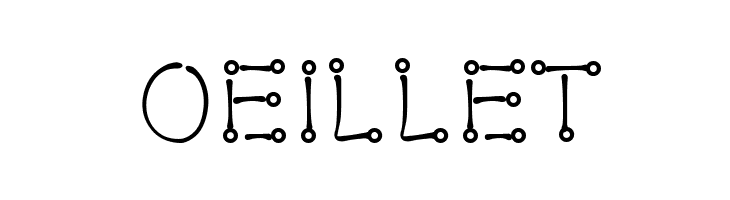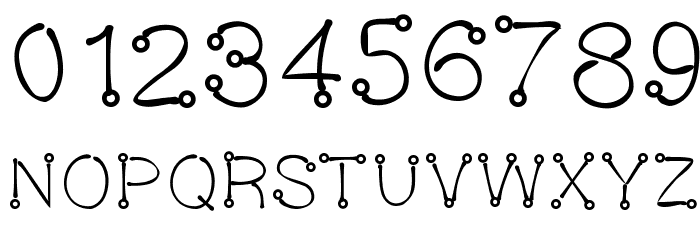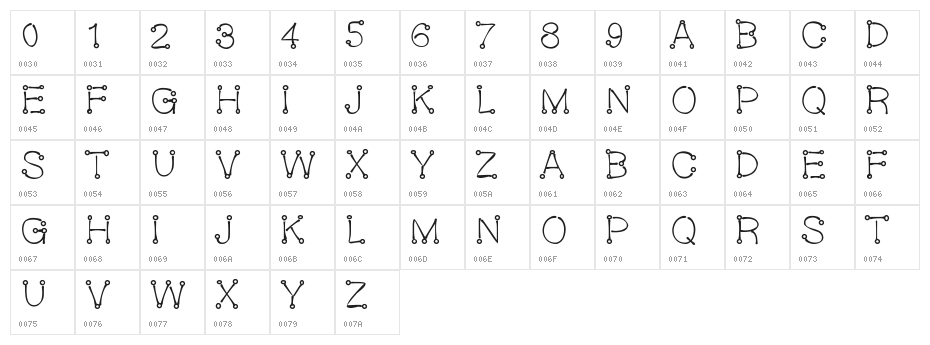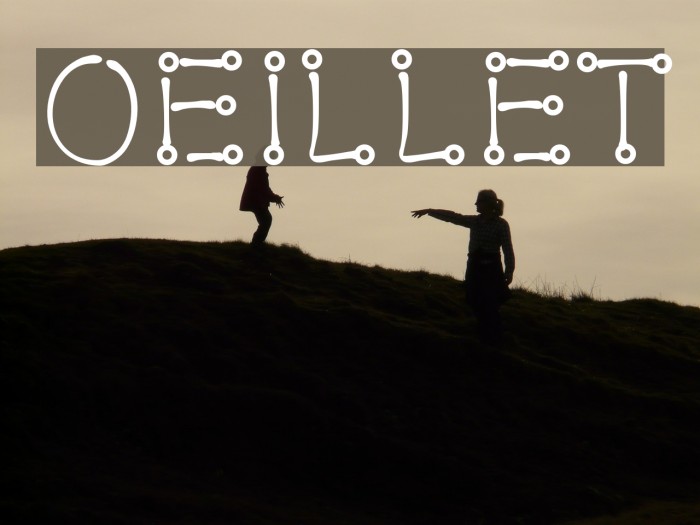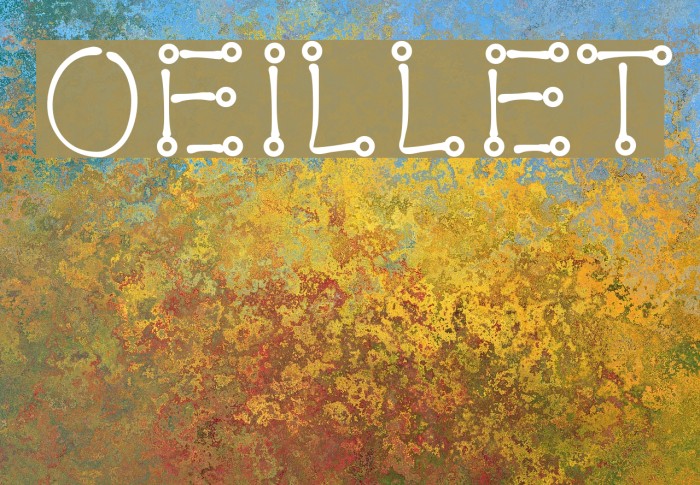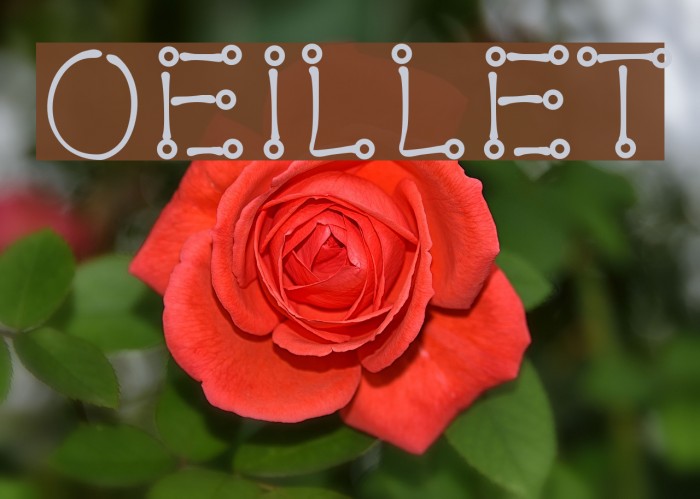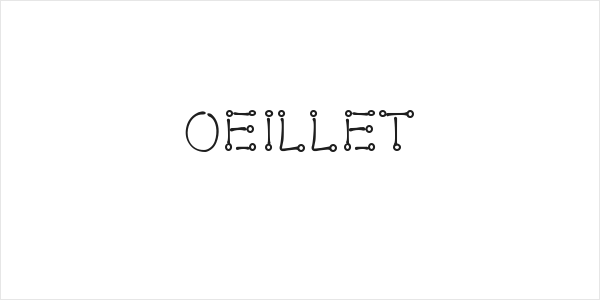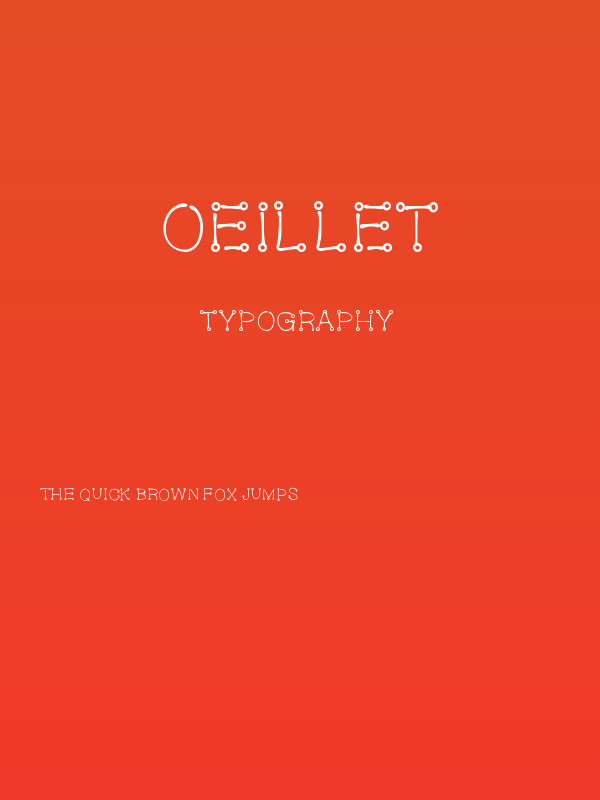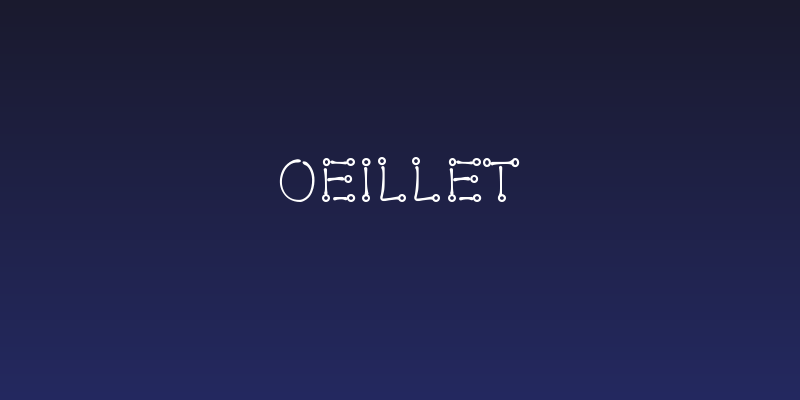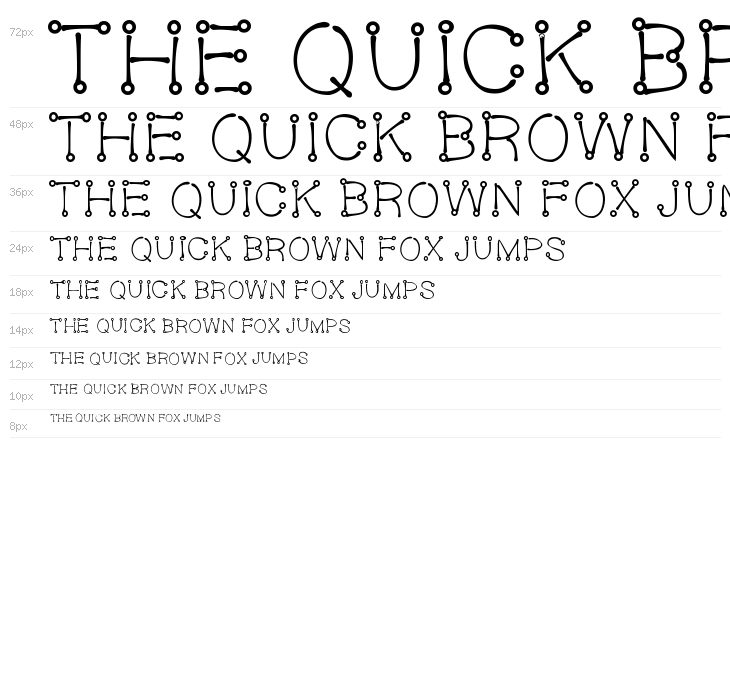
Oeillet Font
Oeillet Description
This font features a playful and whimsical design, characterized by its unique dotted embellishments at the end of each stroke. The letters are formed with a consistent line weight, giving it a uniform appearance, while the dots add a decorative touch that makes it stand out. The overall style is reminiscent of a hand-drawn aesthetic, making it suitable for creative and informal projects. The characters are evenly spaced, ensuring readability despite its decorative nature. This font is ideal for projects that require a fun and engaging visual element, such as children's books, playful branding, or artistic posters.
A playful, dotted font with a hand-drawn aesthetic, perfect for creative projects from Uncategorized fonts.
- Proposed Projects: Children's books, playful branding, artistic posters, invitations, and greeting cards.
- Overall Style: Playful, Whimsical, Hand-drawn
- Use Case: Headlines, Logos, Artistic projects